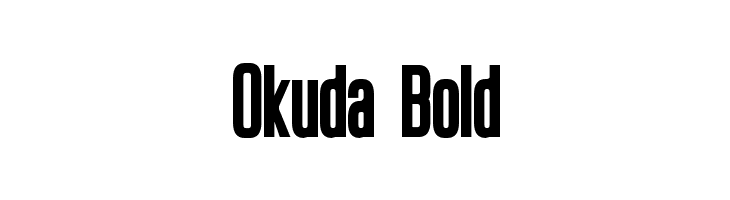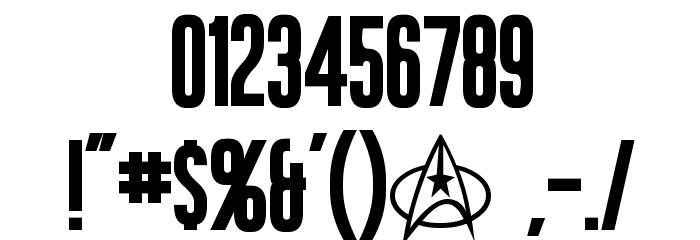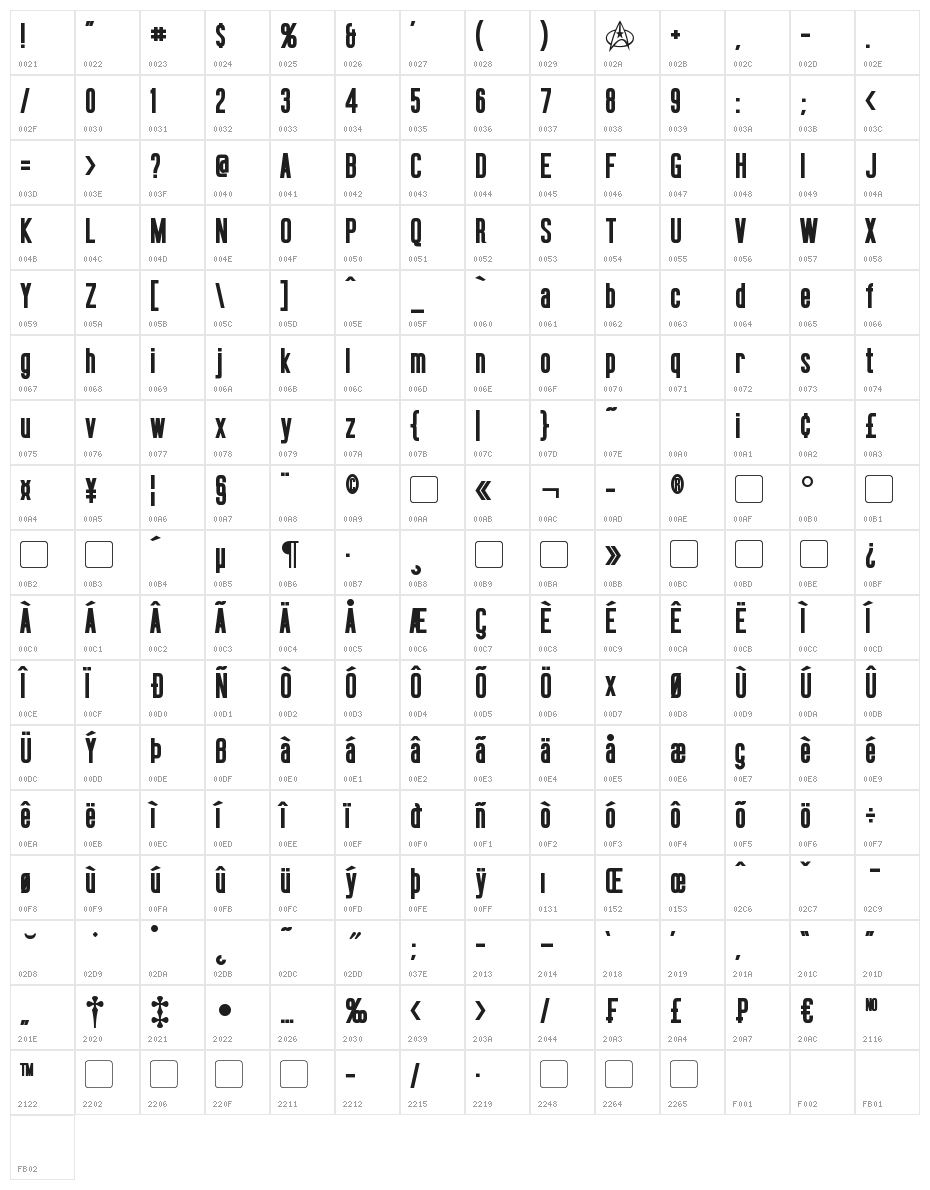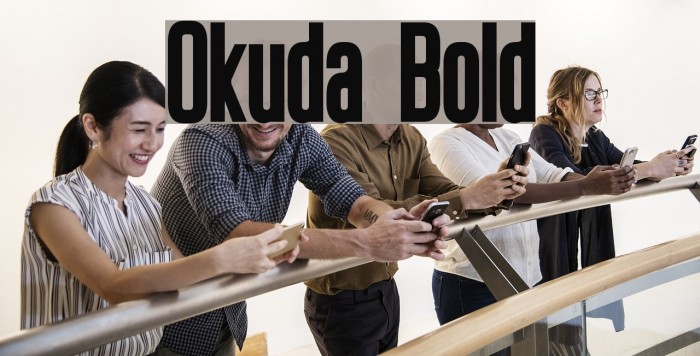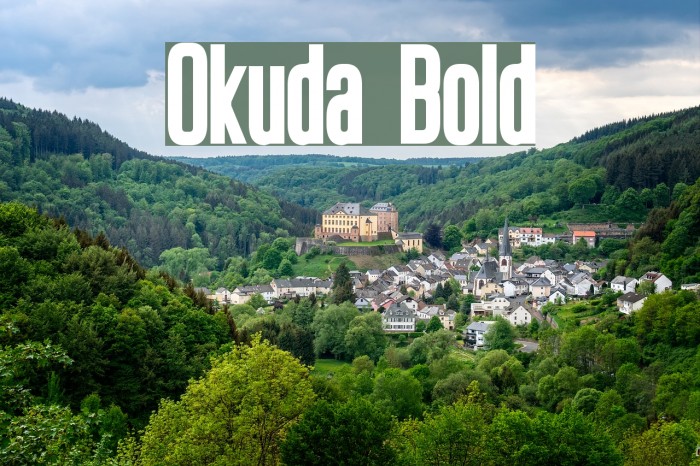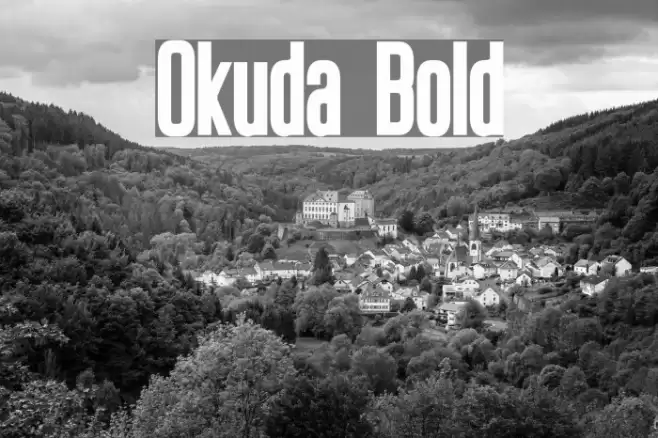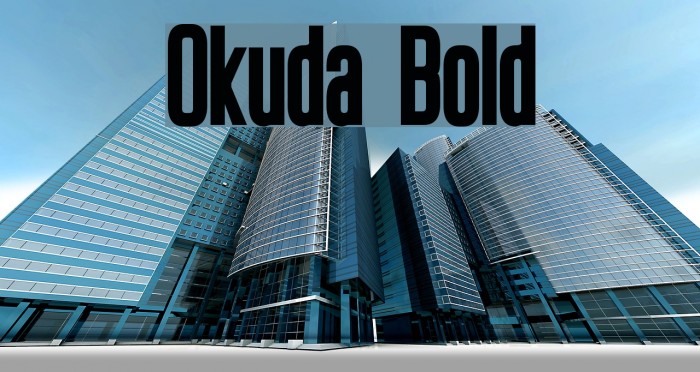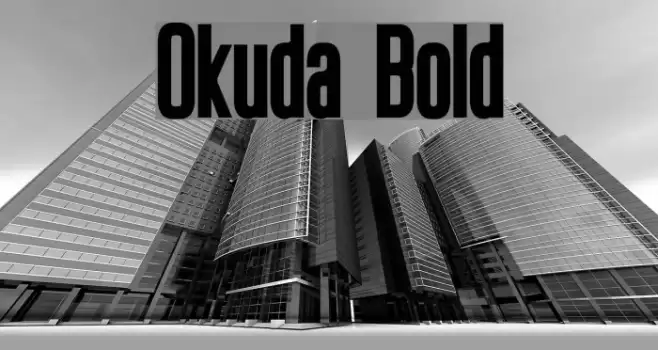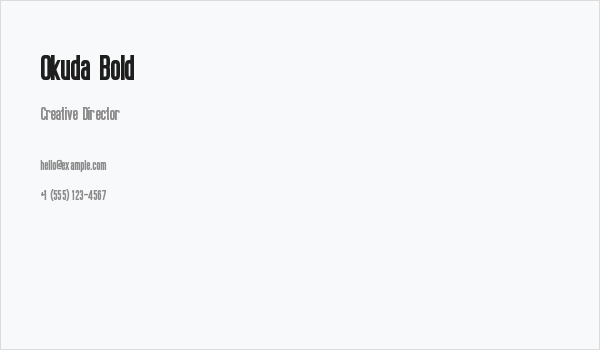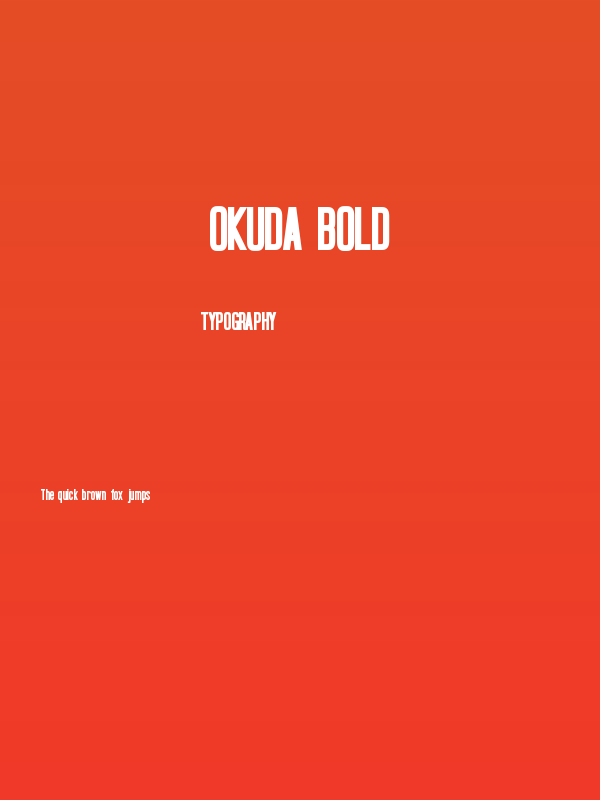
Okuda Bold Font
Okuda Bold Description
This font features a bold and impactful design with strong, thick strokes that convey a sense of power and modernity. The uppercase letters are tall and commanding, while the lowercase letters maintain a consistent height, providing a cohesive look. The numerals are clear and legible, making them suitable for various applications. Special characters are included, adding versatility to the font. Its geometric structure and uniform line weight give it a contemporary feel, ideal for making a statement in any design project.
| Proposed Projects | Ideal for branding, headlines, posters, and any design requiring a strong visual impact. |